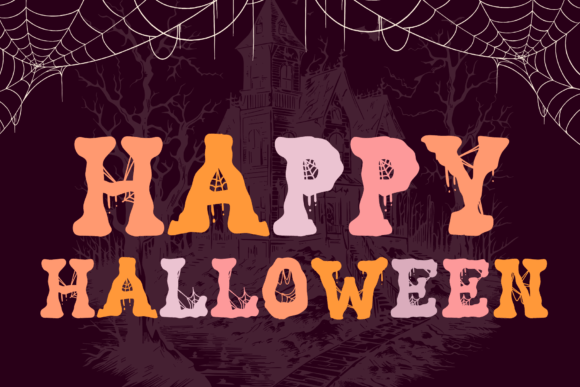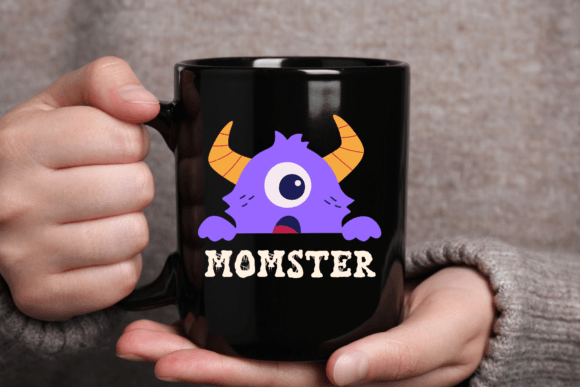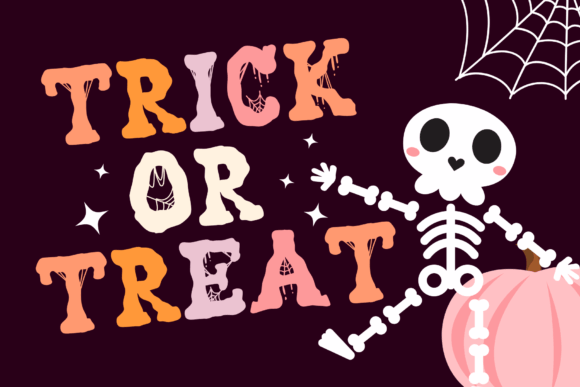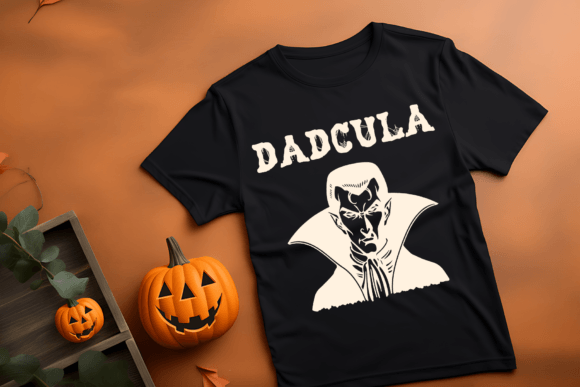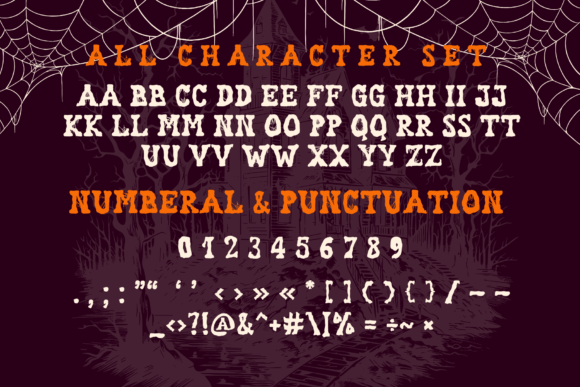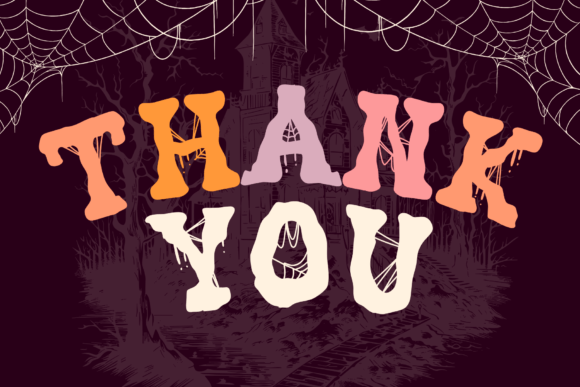
Unleash the Spookiness: Exploring the Haunted House Font for Your Halloween Designs
As the spookiest season approaches, designers and crafters are on the lookout for the perfect typography to add a touch of eeriness and playfulness to their projects. If you’re searching for a font that embodies the essence of Halloween, look no further than the Haunted House Font. This decorative font is specifically designed to bring a sense of fun and authenticity to your designs, making it an ideal choice for a wide range of creative projects.
What is the Haunted House Font?
The Haunted House Font is a unique and creative typography designed specifically for Halloween-themed projects. Its distinctive style combines playfulness with a spooky atmosphere, making it perfect for adding a touch of eerie elegance to your designs. Whether you’re creating blog posts, logos, branding materials, ads, invitations, greeting cards, planners, photo albums, or decorations, this font is sure to make your projects stand out.
Key Features of the Haunted House Font
So, what makes the Haunted House Font so special? Here are some of its key features:
- Playful and Authentic Design: The font boasts a playful yet authentic design that captures the essence of Halloween. Its unique style is sure to add a touch of whimsy and spookiness to your projects.
- Versatile: The Haunted House Font is perfect for a wide range of projects, from blog posts and logos to invitations and decorations.
Uses of the Haunted House Font
The Haunted House Font is incredibly versatile and can be used in a variety of projects, including:
- Blog Posts: Add a touch of Halloween spirit to your blog posts with the Haunted House Font. Use it for headings, titles, or even entire paragraphs to create a spooky atmosphere.
- Logos and Branding: Create a memorable logo or branding materials for your Halloween-themed business or event using the Haunted House Font.
- Ads and Invitations: Make your Halloween ads and invitations stand out with the Haunted House Font. Its playful and spooky design is sure to grab attention.
- Greeting Cards and Planners: Add a touch of Halloween spirit to your greeting cards and planners with the Haunted House Font.
- Photo Albums and Decorations: Use the Haunted House Font to create spooky and playful decorations, such as signs, banners, and garlands.
Tips for Using the Haunted House Font
Here are some tips for getting the most out of the Haunted House Font:
- Experiment with Different Sizes: Play around with different font sizes to create visual interest and hierarchy in your designs.
- Combine with Other Fonts: Pair the Haunted House Font with other fonts to create a unique and eye-catching design.
- Use in Combination with Images: Combine the Haunted House Font with spooky images, such as pumpkins, ghosts, or bats, to create a cohesive and engaging design.
The Haunted House Font is a versatile and creative typography that’s perfect for adding a touch of Halloween spirit to your designs. Its playful and authentic design makes it an ideal choice for a wide range of projects, from blog posts and logos to invitations and decorations. With its ease of use and flexibility, the Haunted House Font is sure to become a go-to font for designers and crafters looking to create spooky and engaging designs.